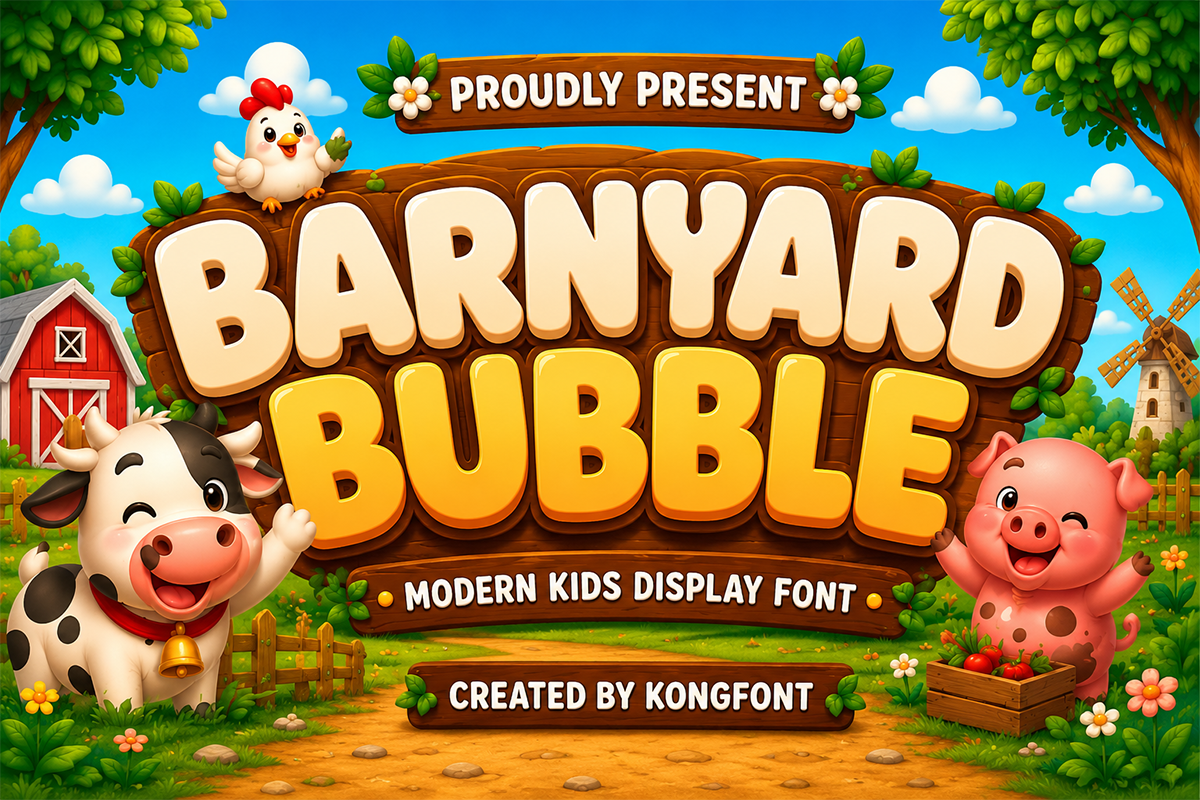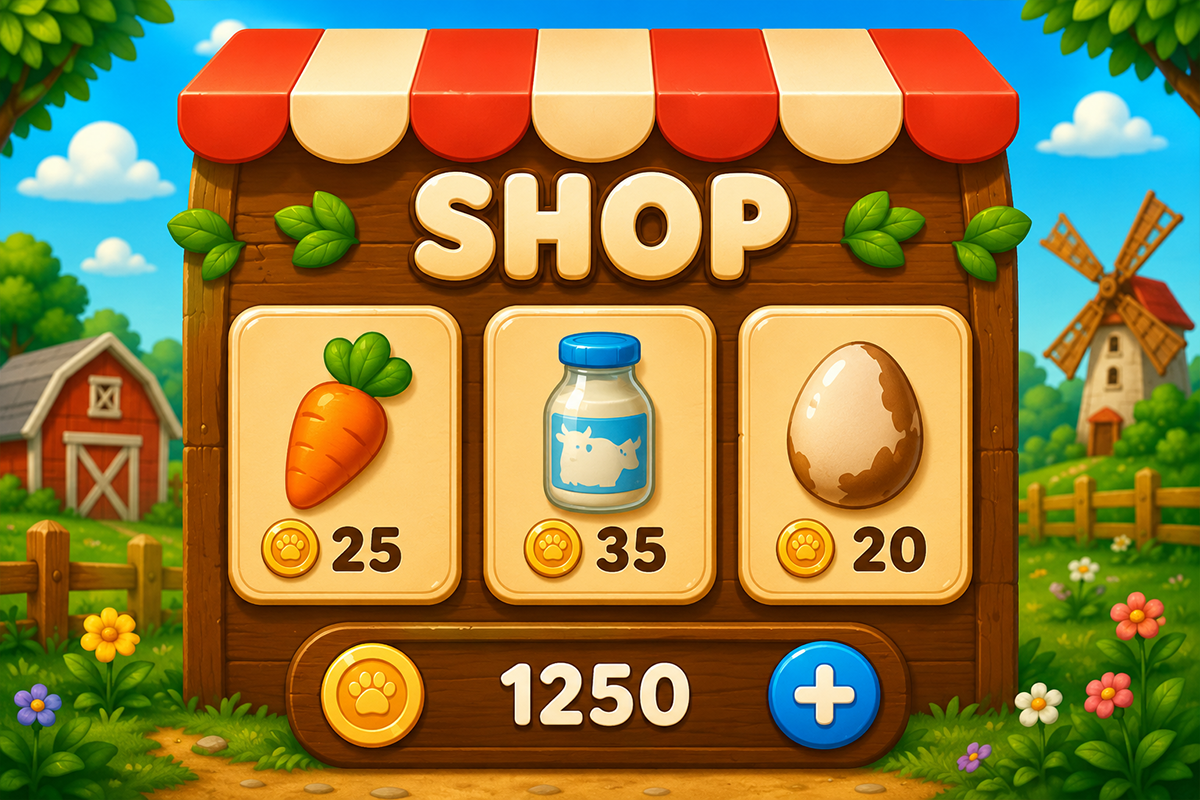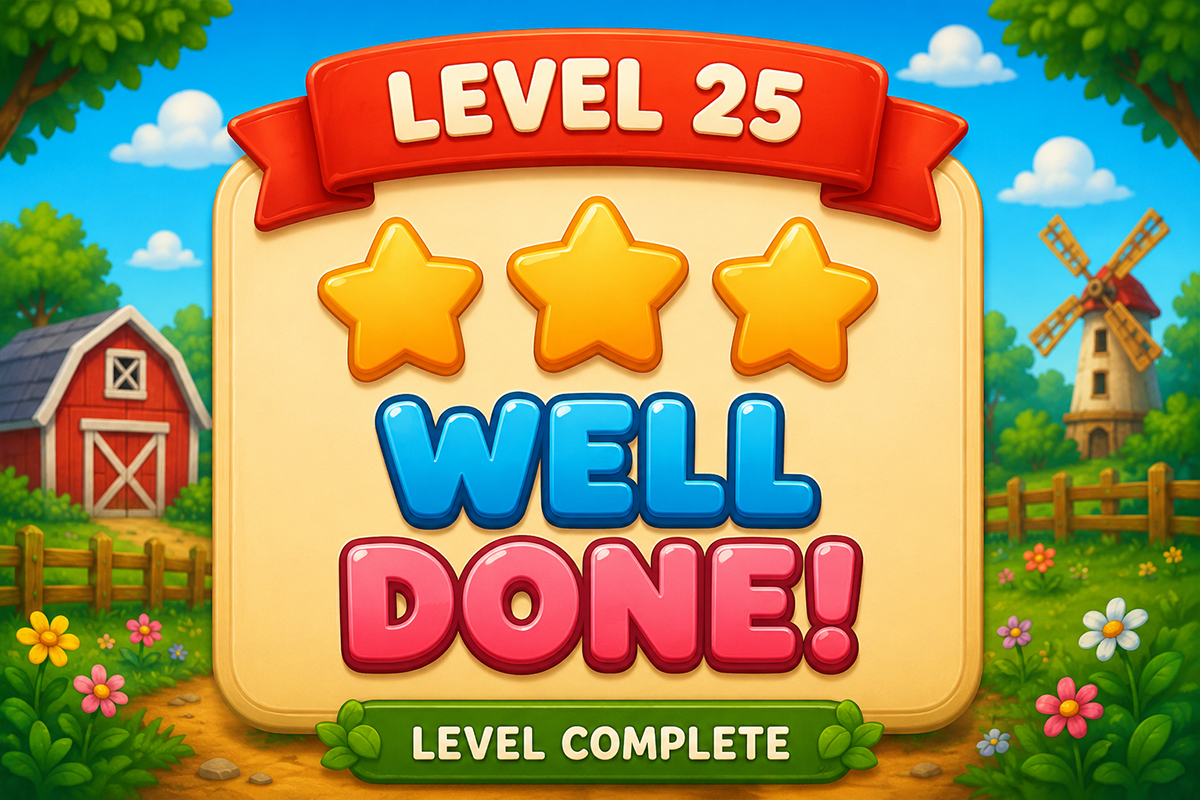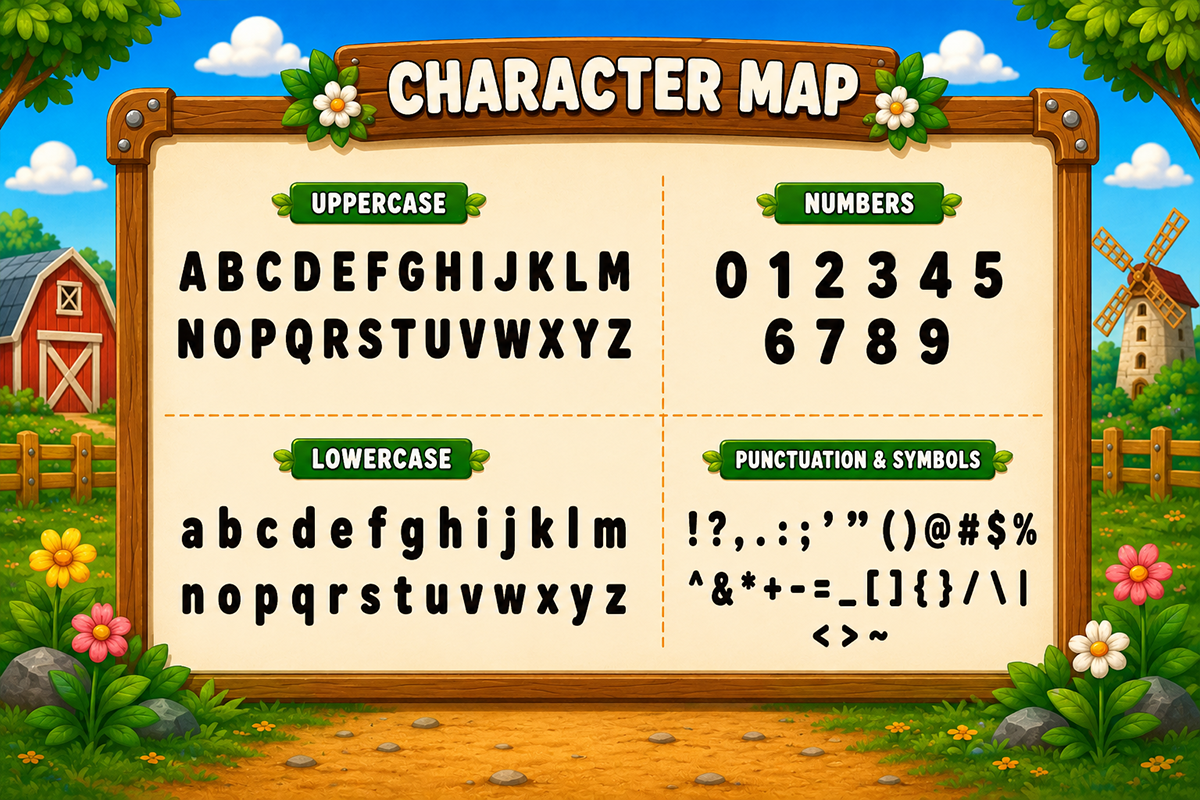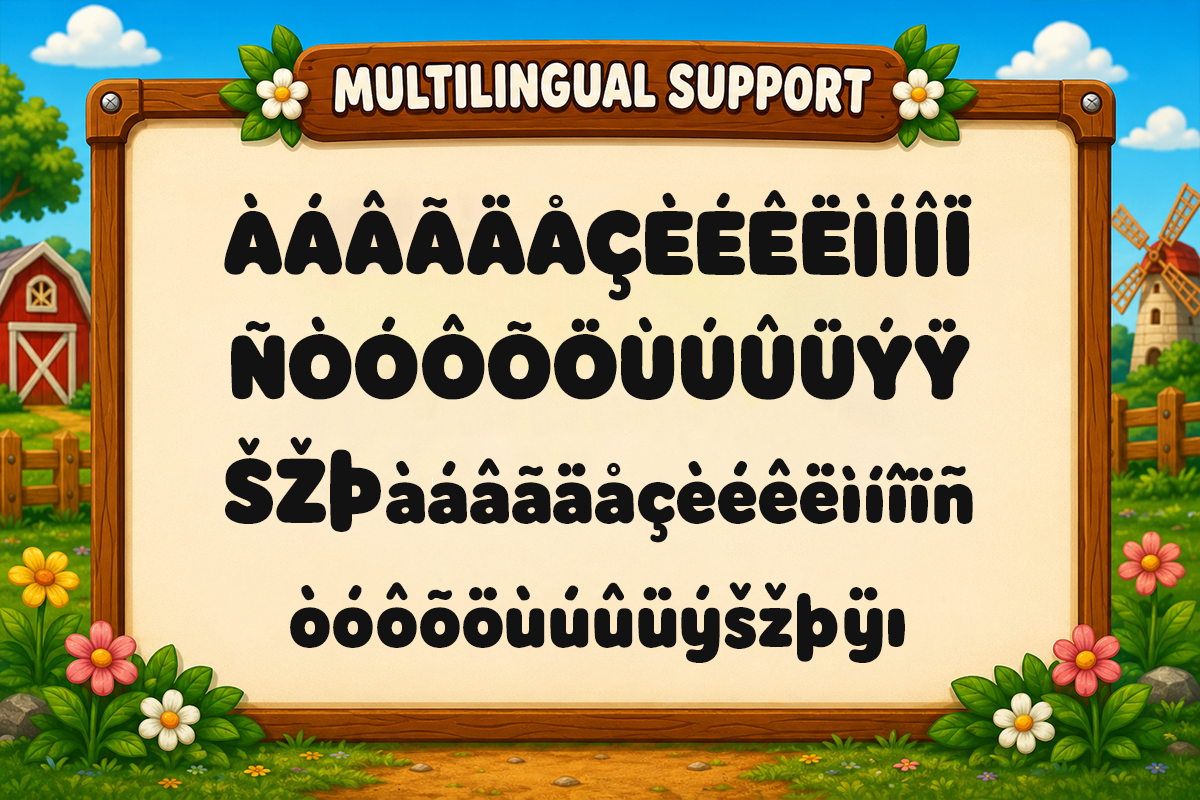
Barnyard Bubble A Modern Display Kids Font Part of our Display font collection, Barnyard Bubble A Modern Display Kids Font is a playful and vibrant typeface designed with a bold, rounded, and bubble-like aesthetic. Featuring chunky, soft-edged characters, the font captures a friendly and cheerful mood perfect for children's designs. Due to its thick, rounded structure and approachable appearance, the characteristic of this font fits well within a display category tailored for fun, engaging, and eye-catching creative projects. Bold and classic, this font invokes a sense of familiarity and nostalgia in its viewers. Not only that, Barnyard Bubble A Modern Display Kids Font is a legible display font, meaning that each letter is easily distinguished and this fact makes Wood Play A Modern Display Kids Font, one of the best choices to be put on signage, posters, information board, etc. Combined with vintage colors and an old western theme, this font can help you make your cafes or distros regulars feel as if they were going dining in the 1960s. For a smaller size printing job, this font can also be used for the cover of a cowboy storybook or used in the intro of a western film. Barnyard Bubble A Modern Display Kids Font can also be used on small merchandise products from theme-park such as; keychains, refrigerator magnets, and stickers, or you can also print them on items such as t-shirts, jackets, caps, etc. Our collection of Espot & Futuristic fonts is compatible to use as Figma fonts, Canva fonts, Freepik Fonts, and Adobe Fonts]. They also work as Windows Fonts, and Apple Fonts. For your social media needs, you can use and install fonts in our collection of Espot & Futuristic fonts to use as Instagram Fonts, Facebook Fonts, and Twitter Fonts.